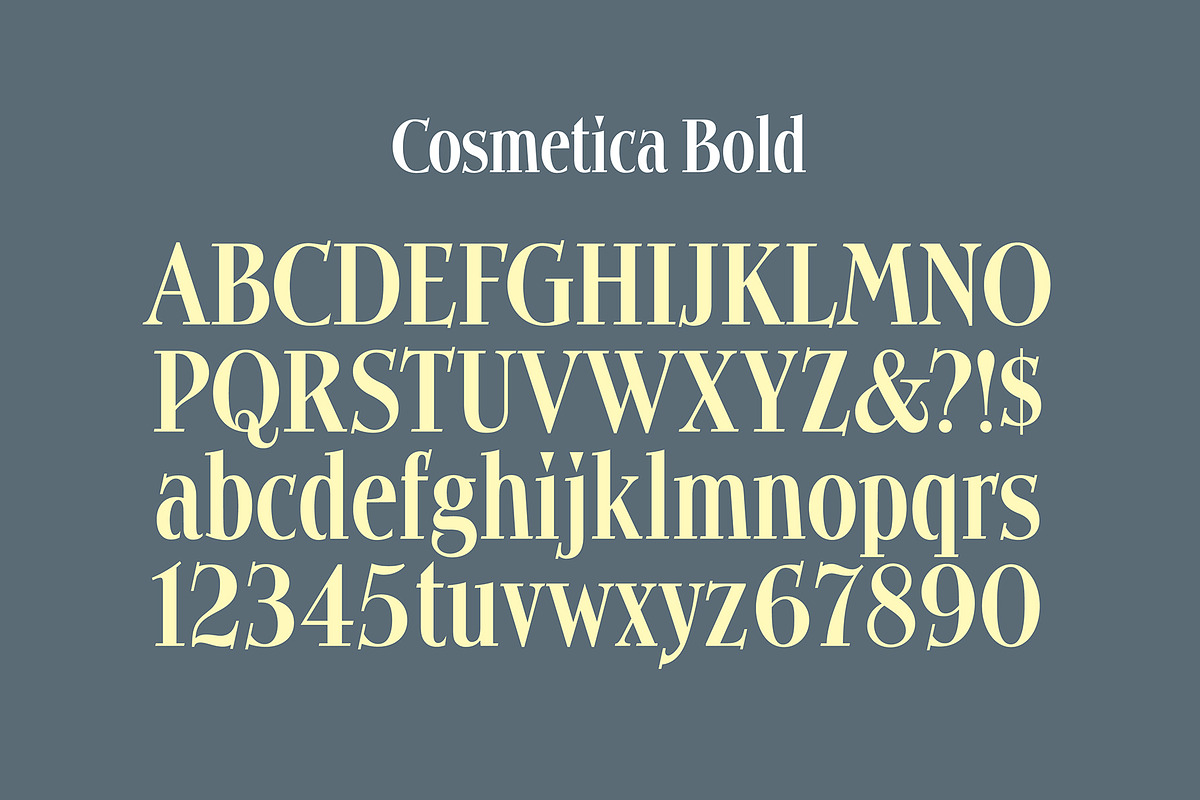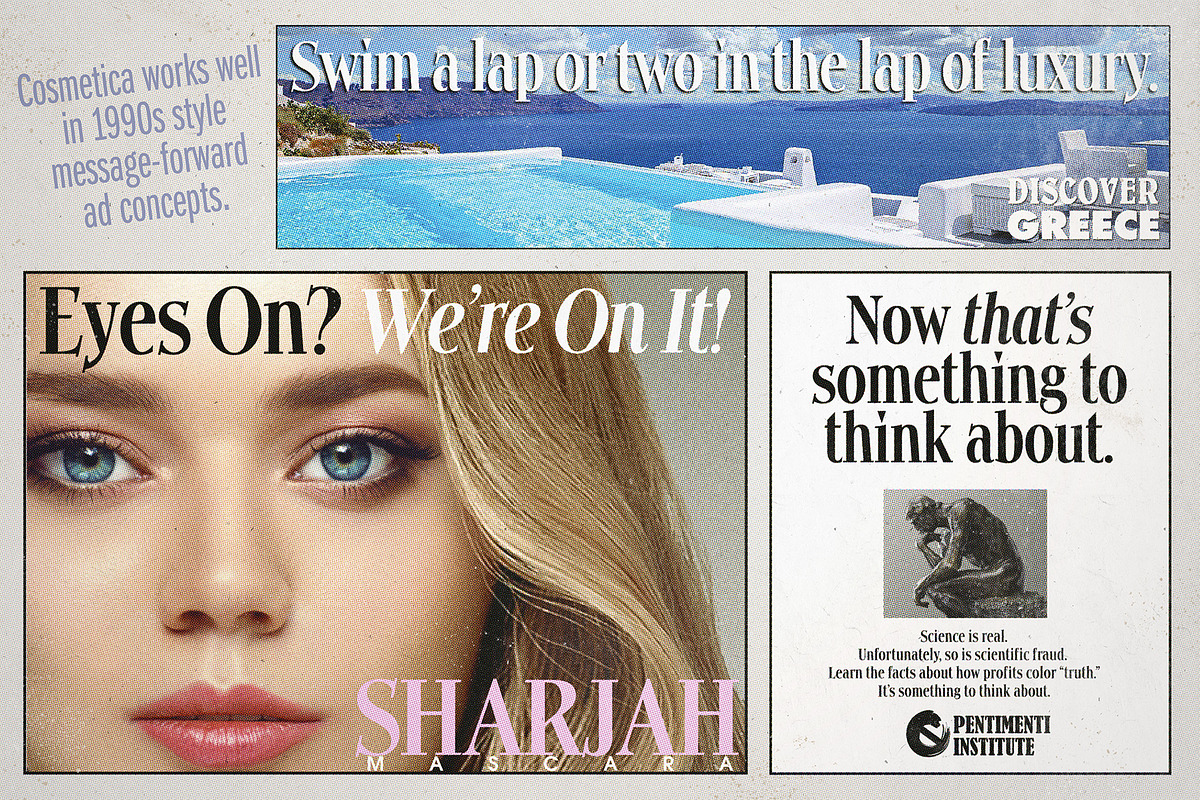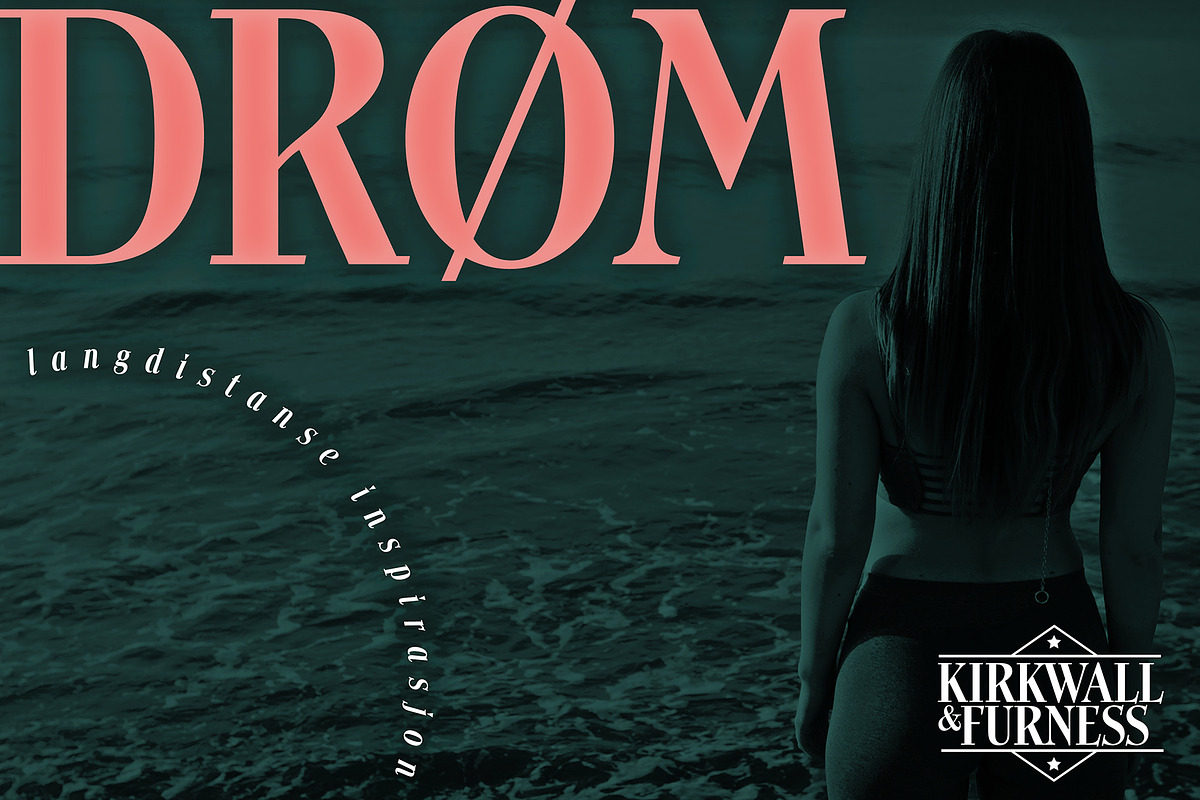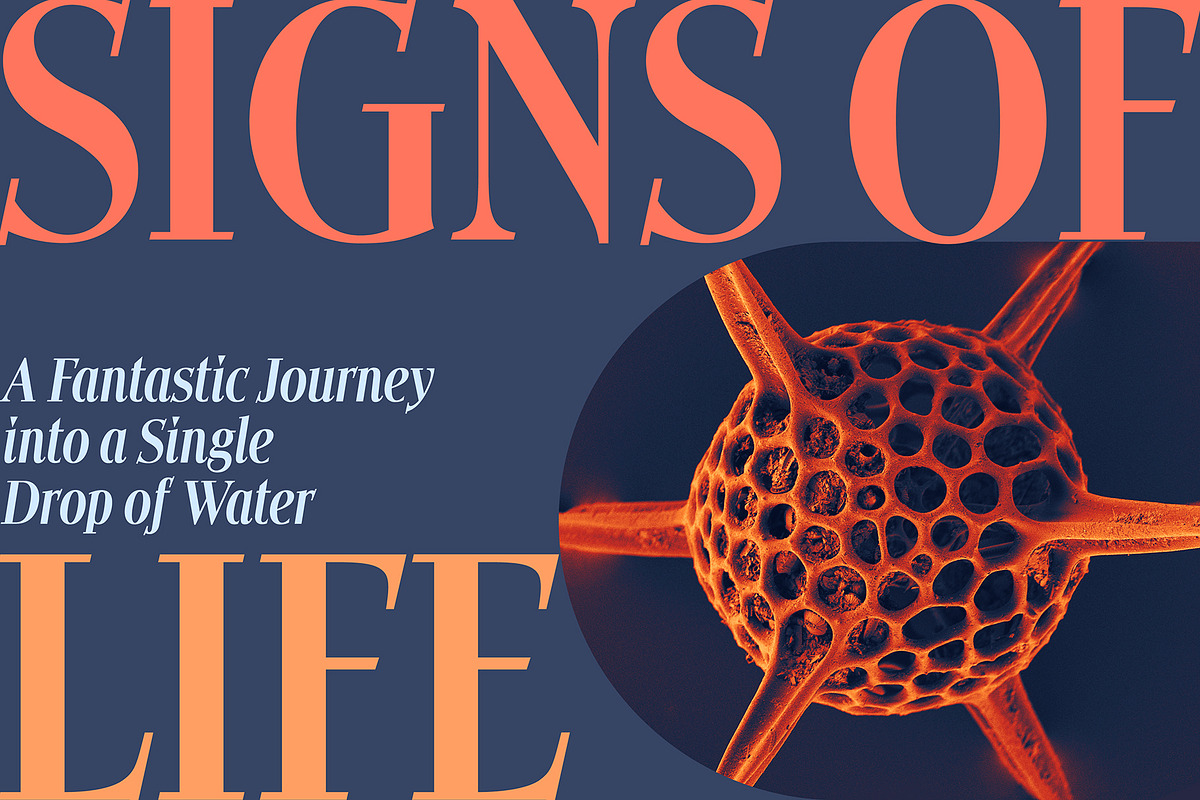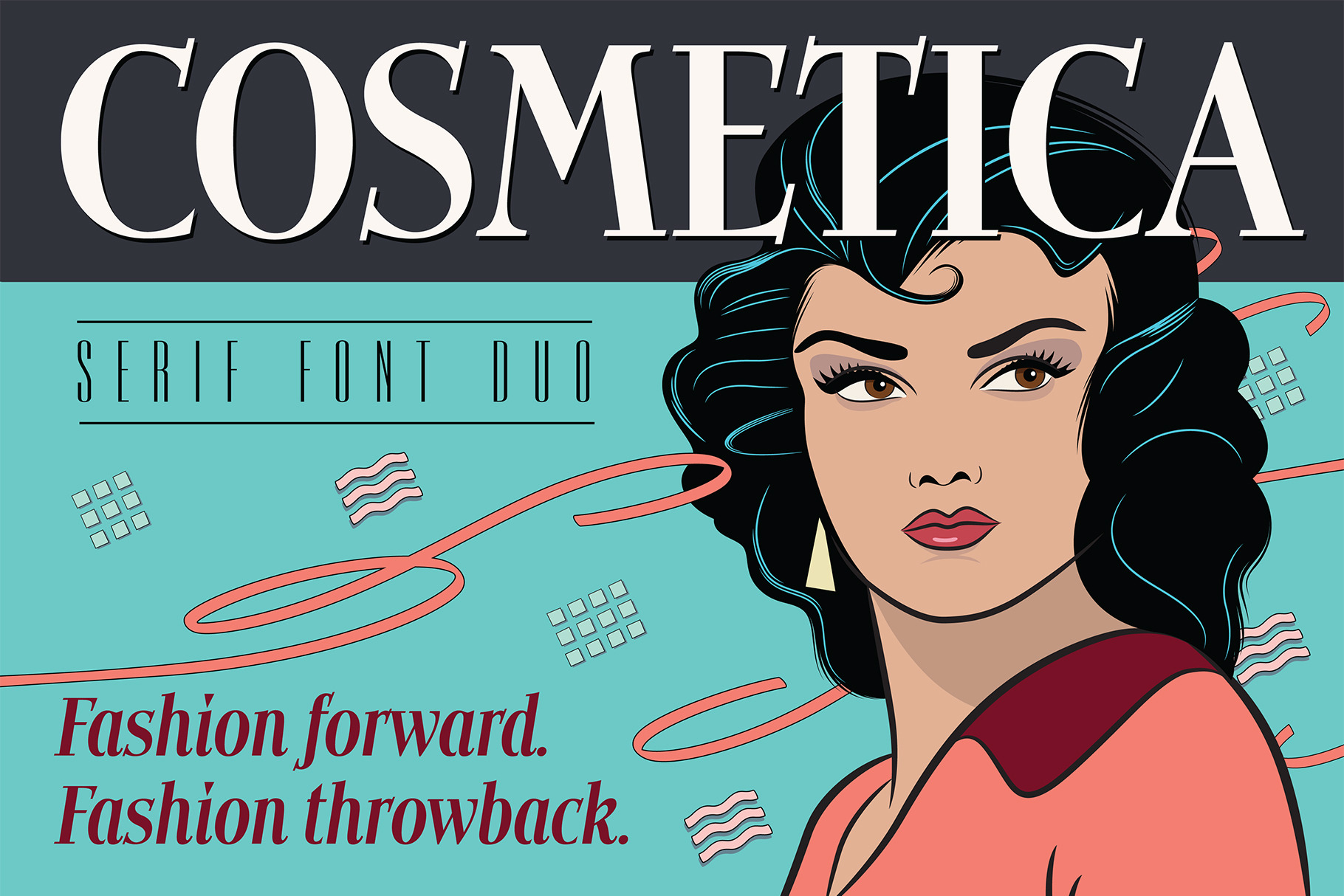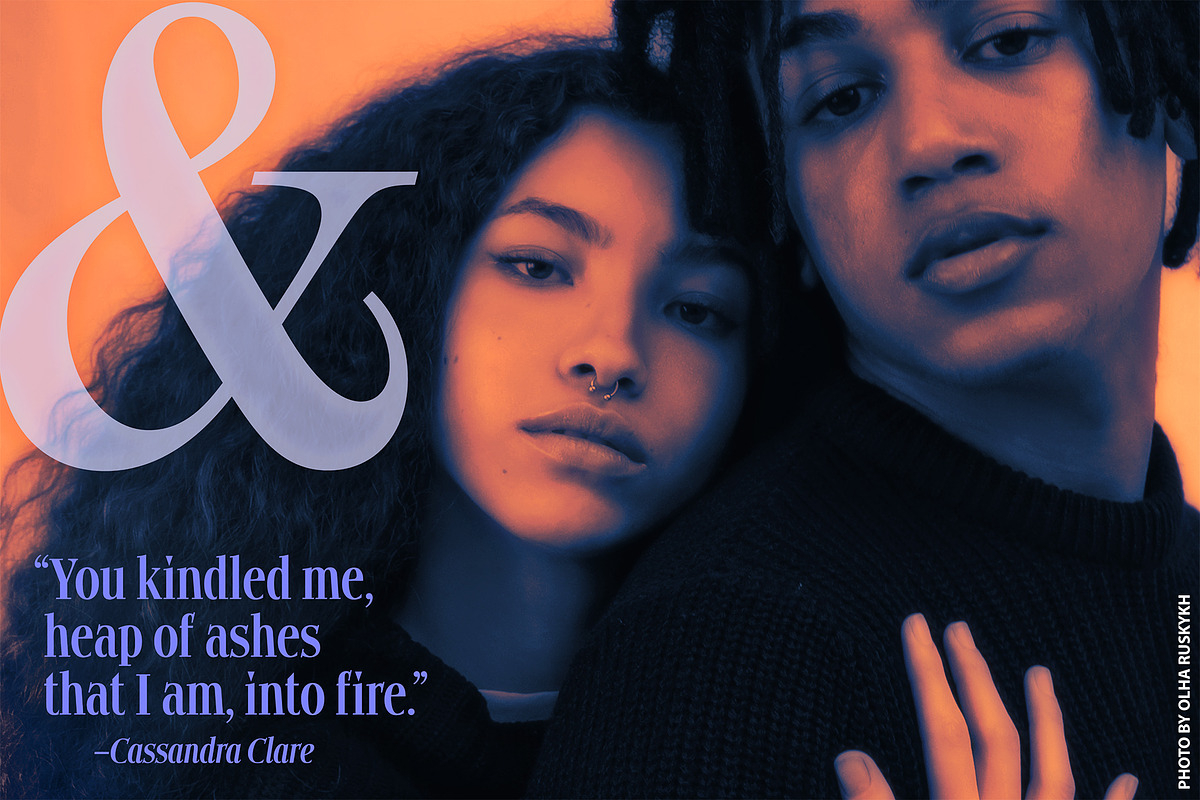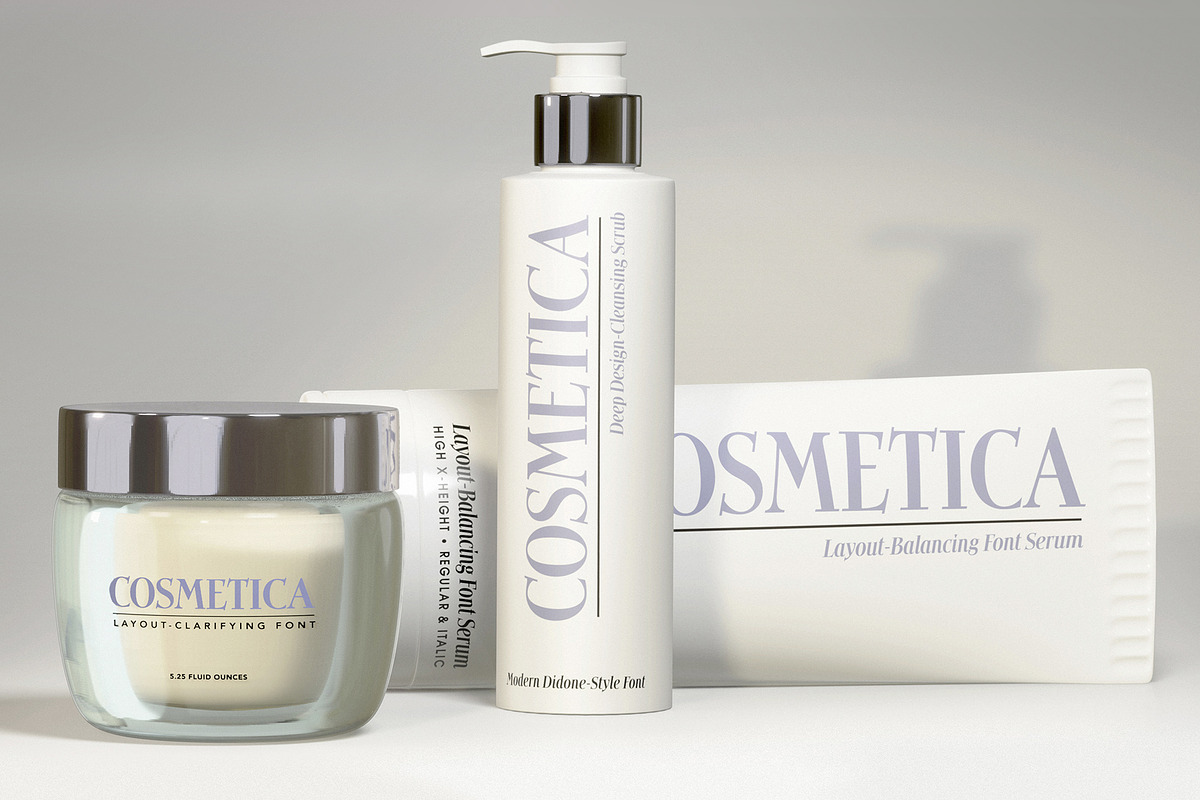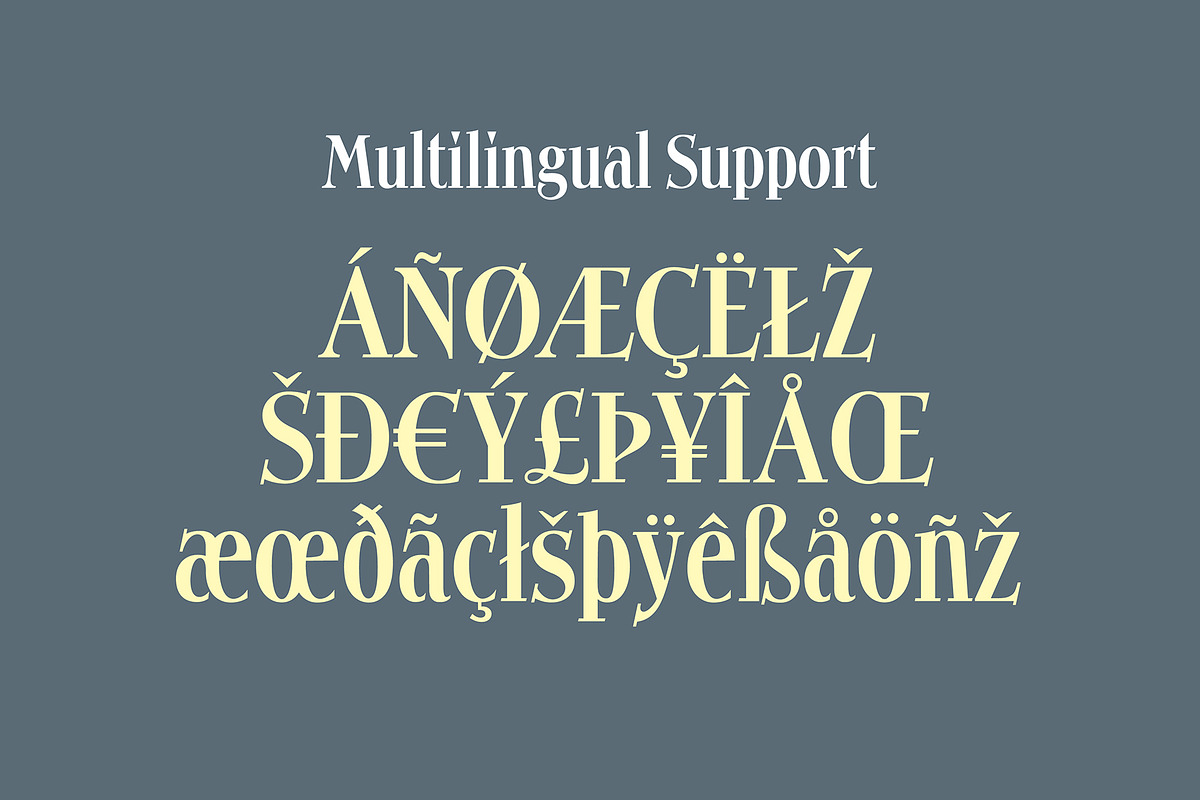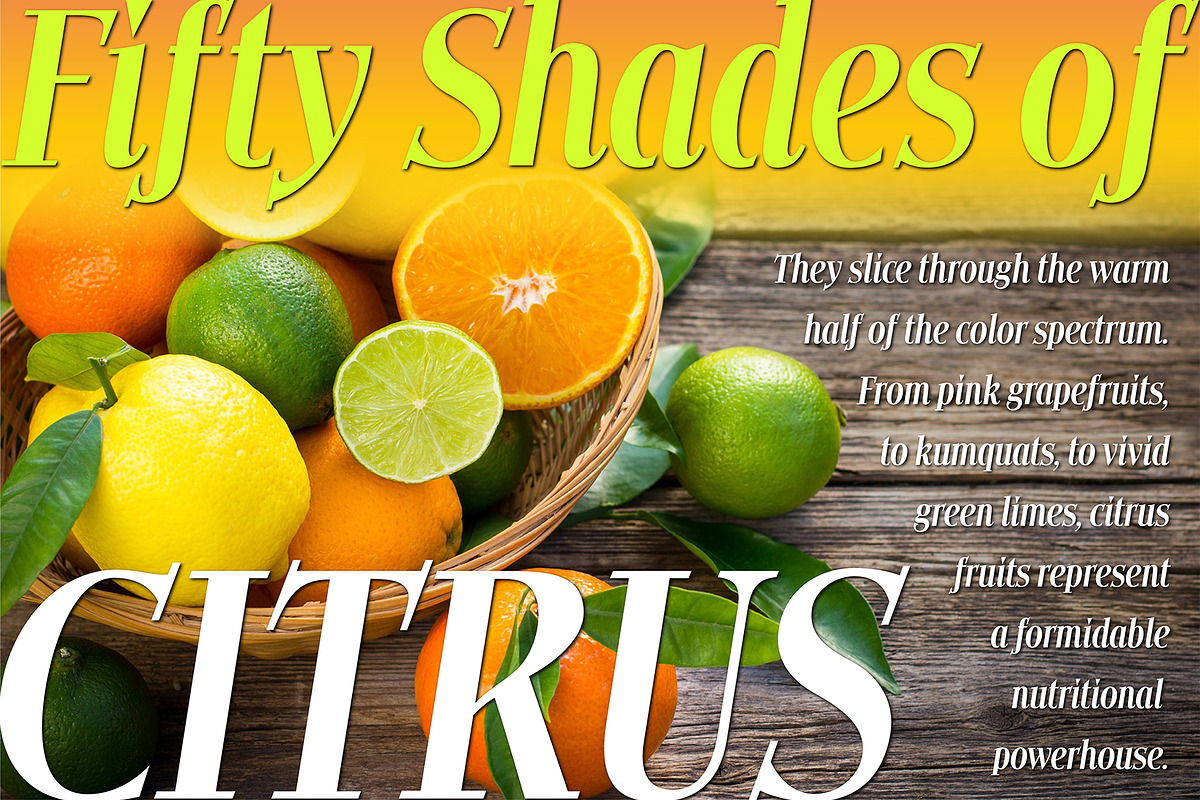
Cosmetica Font
Here's a posh new serif typeface and its matching italic. Glowing with elegance, Cosmetica can go head to head with classic evergreens like Bodoni, Didot, or Century. And just like those go-to favorites, Cosmetica really shines at the huge, layout-dominating sizes which have been a staple of top-shelf fashion branding and magazine design since at least the mid-1980s. You'll also find this font to be a great workhorse at much smaller sizes and in extended text passages, as the hairline serifs don't disappear in the smaller size ranges. Originally created in 2014, this updated version features more multilingual characters than before, and we've applied even more careful attention to artistic kerning and other micro-adjustments that'll make this one work great wherever and whenever you need it.
As its title suggests, Cosmetica's unique look works perfectly in cosmetics and fashion branding, but also try it with 1990s-style message forward ad headline applications if you're after a retro look with a hint of a modern twist. The semi-condensed proportions and tall x-height make it great for pull quotes, page banners, and logo design.